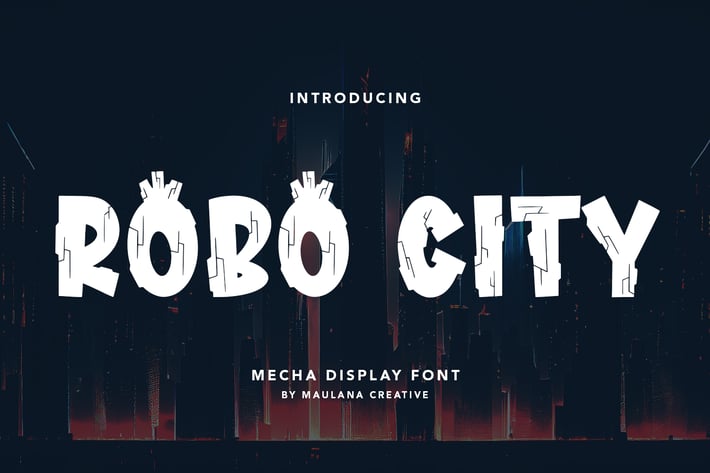
Robo City Mecha Display Font
Robo City mecha display font. Heavy stroke, fun character with a bit of ligatures. To give you an extra creative work. Robo City mecha display font support multilingual more than 100+ language. This font is good for logo design, Social media, Movie Titles, Books Titles, a short text even a long text letter and good for your secondary text font with script or serif. Make a stunning work with Robo City mecha display font.